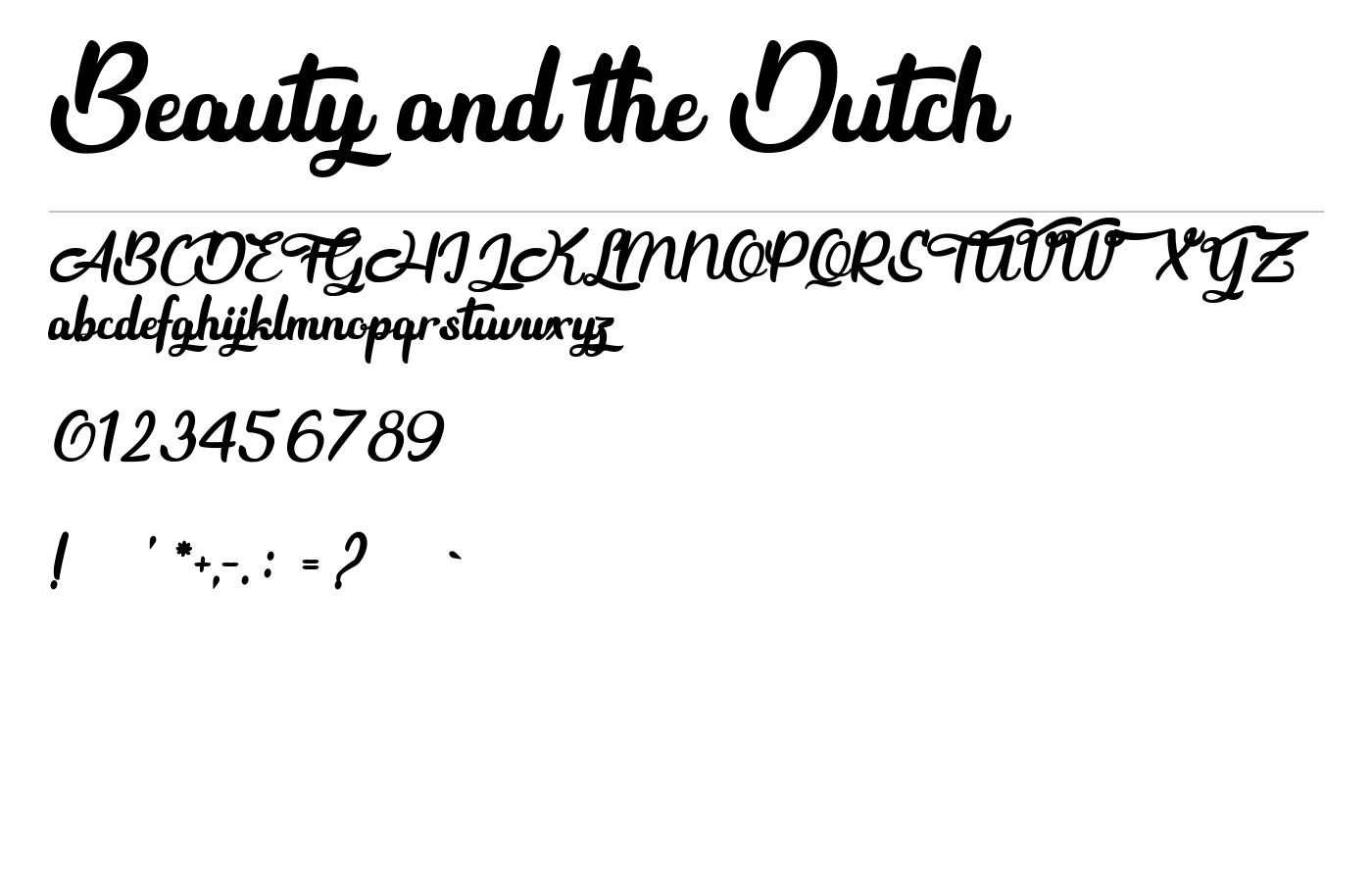
Beauty and the Dutch is a bold, playful script font with smooth, rounded strokes and a friendly, handwritten feel. Its lively letterforms feature unique swashes and flowing connections, making it perfect for creative and casual branding, invitations, and display purposes where a touch of charm and personality is desired. This font excels in designs that seek a warm and approachable yet stylish vibe.
Beauty and the Dutch Font
About Beauty and the Dutch Font
| Font family | Beauty and the Dutch Font |
| Designer | Octotype |